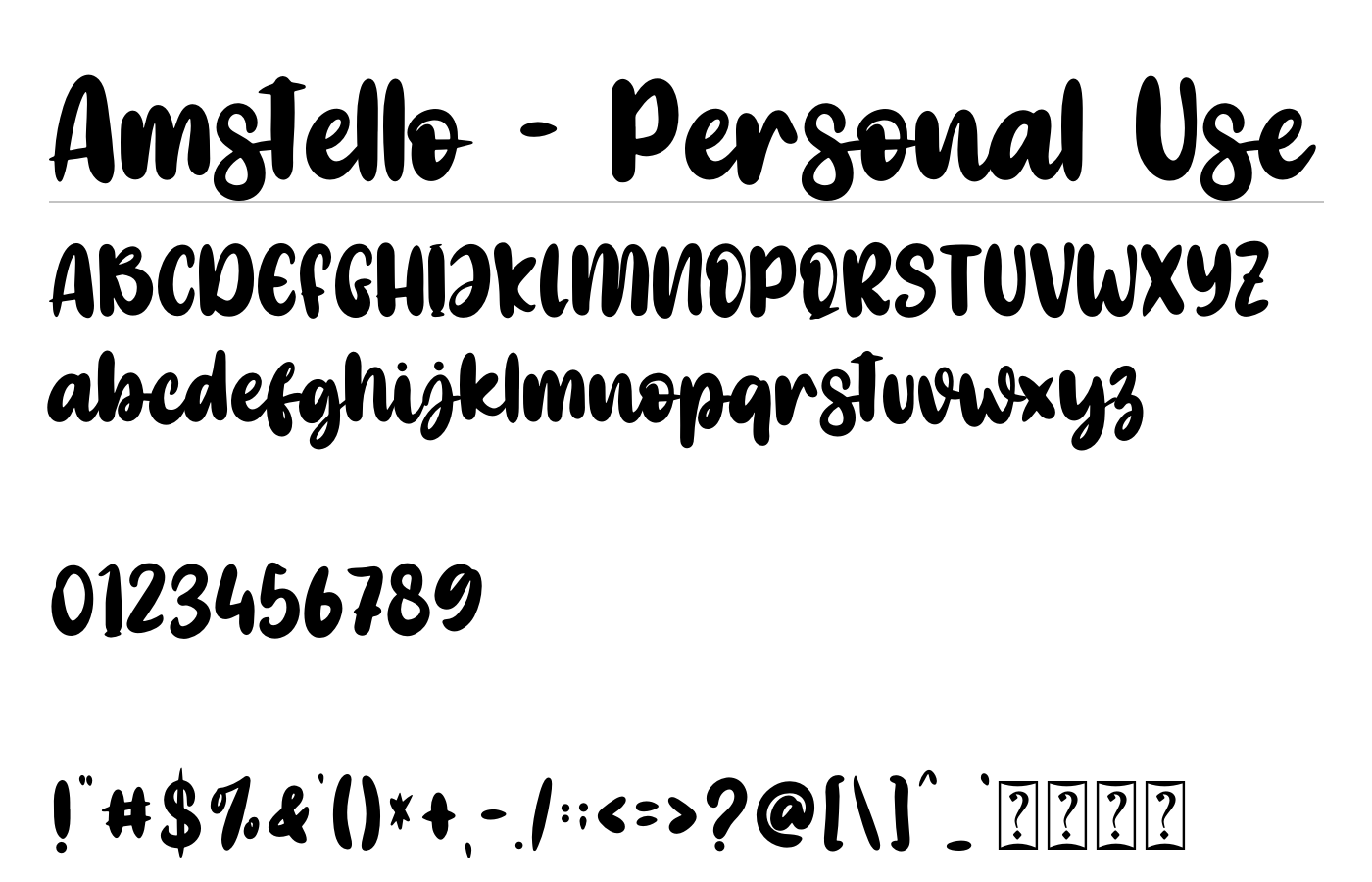
Amstello is a bold, playful script font with a hand-drawn feel, featuring rounded, casual letterforms and consistent stroke weight. Its lively, friendly style makes it ideal for creative projects, informal branding, and eye-catching headlines that need a warm, approachable tone. Perfect for personal use, Amstello brings a fun and inviting personality to designs like logos, posters, and social media graphics.
Amstello - Personal Use Font
About Amstello - Personal Use Font